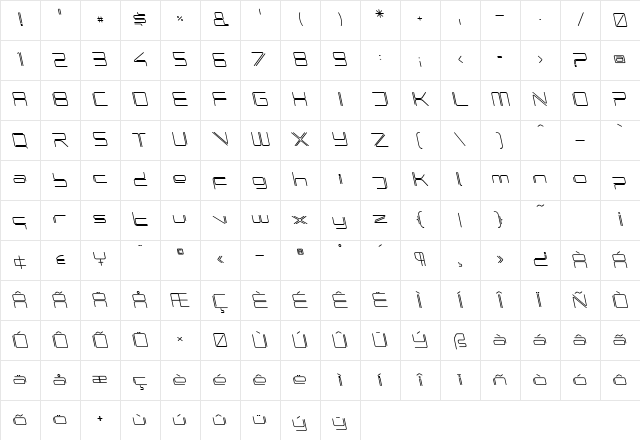
PhutureRndOpen Italic
Complete PhutureRndOpen Italic glyph index. Displaying only characters natively supported by PhutureRndOpen Italic font.
Design Context for PhutureRndOpen
PhutureRndOpen is a composed and adaptable typeface that performs quietly and consistently across a wide range of design contexts. The slanted form adds forward momentum and visual energy.